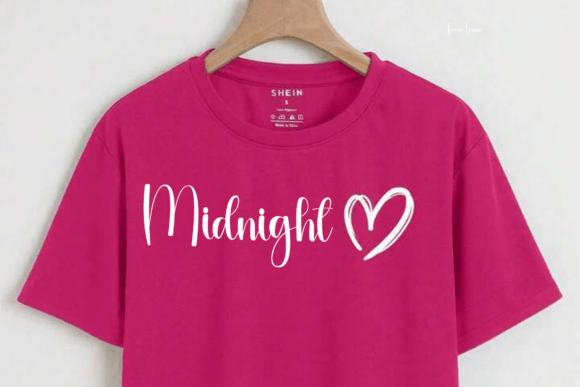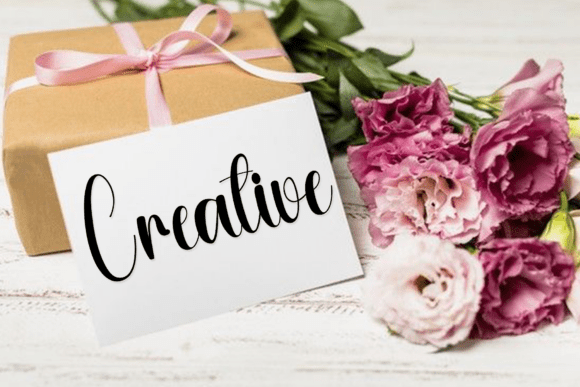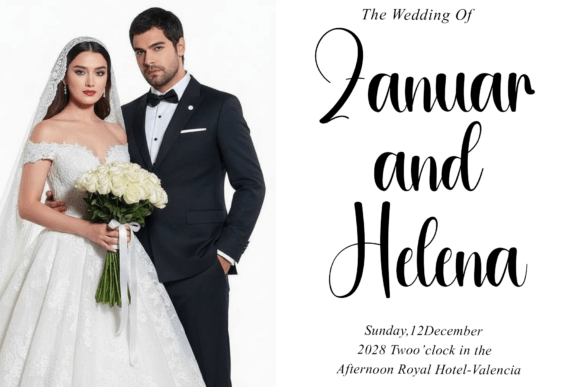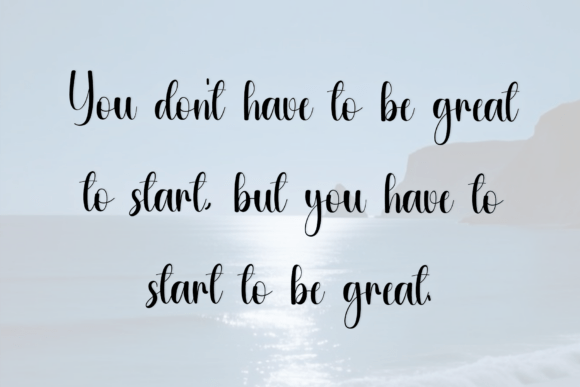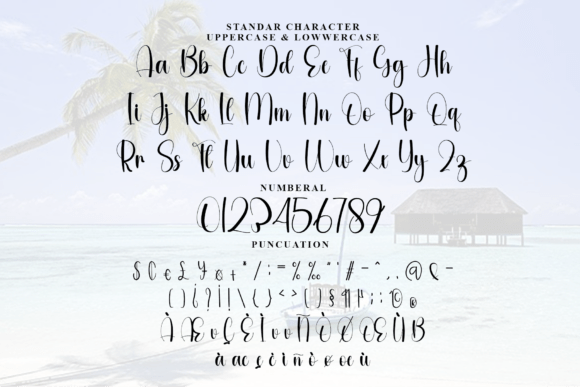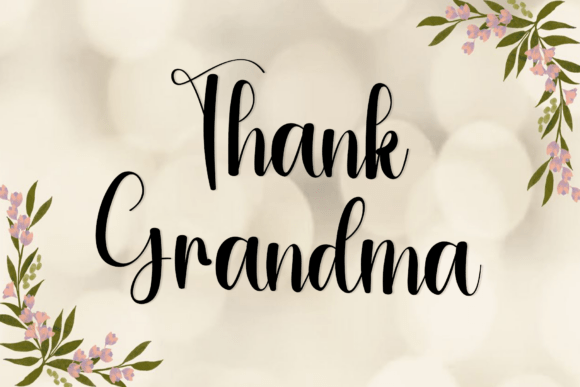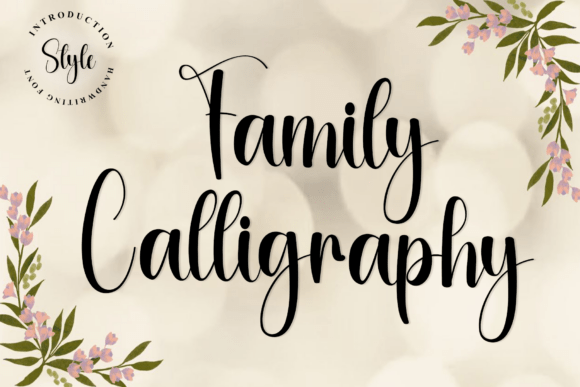
Introducing Family Calligraphy Font: Elevate Your Design with a Touch of Autumnal Elegance
Are you looking for a font that exudes sophistication and refinement? Do you want to add a touch of autumnal charm to your designs? Look no further than Family Calligraphy Font, a stunning script font that embodies the essence of the season. As part of a modern handwritten collection, Family Calligraphy is a premier asset for designers and crafters seeking to create visually striking and professional-looking designs.
A Unique and Professional Visual Voice
Family Calligraphy Font boasts a unique and professional visual voice that is perfect for autumnal-themed designs. The font features high-contrast strokes with thick, grounded downstrokes and delicate hairline connectors, creating a sense of rhythm and fluidity. The vertically elongated letterforms and graceful, looping ascenders mimic high-end inkwork, giving the font a luxurious and sophisticated feel.
Characteristics of Family Calligraphy Font
So, what sets Family Calligraphy Font apart from other script fonts? Here are some of its key characteristics:
- High-contrast strokes: Thick, grounded downstrokes and delicate hairline connectors create a sense of drama and elegance.
- Vertically elongated letterforms: The font’s letterforms are stretched upwards, giving it a sense of grandeur and sophistication.
- Graceful, looping ascenders: The font’s ascenders are designed to mimic high-end inkwork, adding a touch of luxury to your designs.
- Autumnal visual voice: The font’s unique combination of thick and thin strokes, along with its elegant letterforms, evoke the feeling of autumn.
Use Cases for Family Calligraphy Font
Family Calligraphy Font is a versatile font that can be used in a variety of design applications. Here are some use cases where the font truly shines:
- Seasonal autumn marketing: Add a touch of autumnal charm to your marketing materials, such as posters, flyers, and social media graphics.
- Artisanal food packaging: Elevate your food packaging design with a font that exudes sophistication and elegance.
- Boutique event invitations: Create stunning event invitations that will leave a lasting impression on your guests.
- Sophisticated editorial headers: Use Family Calligraphy Font to add a touch of luxury to your editorial designs, such as magazine headers and article titles.
Family Calligraphy Font is a stunning script font that embodies the essence of autumn. With its unique and professional visual voice, high-contrast strokes, and elegant letterforms, it’s perfect for designers and crafters seeking to create sophisticated and visually striking designs. Whether you’re working on seasonal autumn marketing materials, artisanal food packaging, boutique event invitations, or sophisticated editorial headers, Family Calligraphy Font is a premier asset that will elevate your designs to the next level.